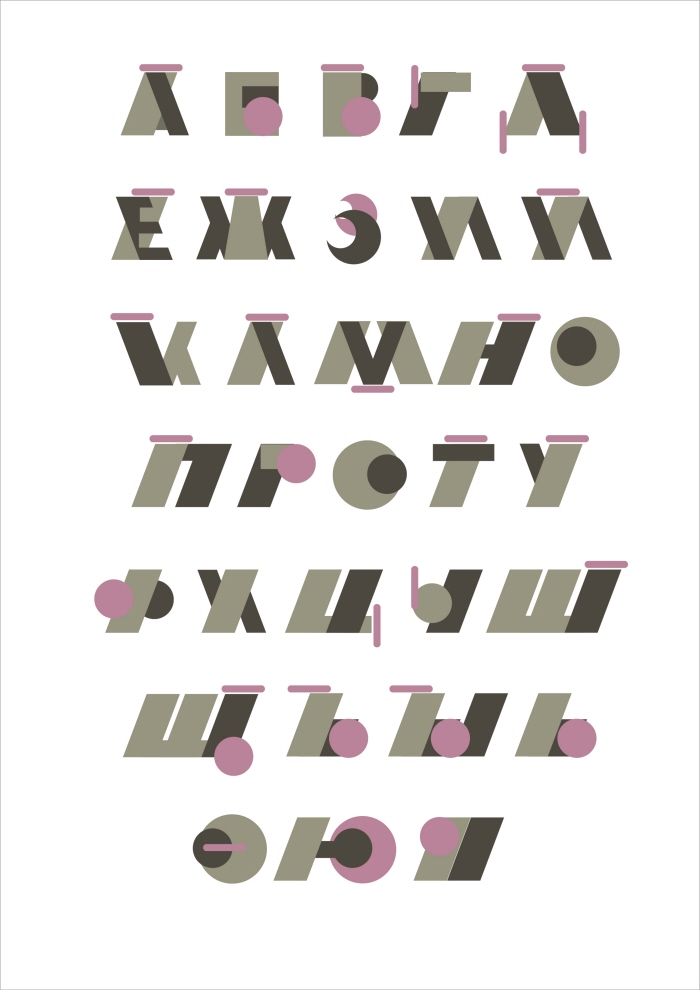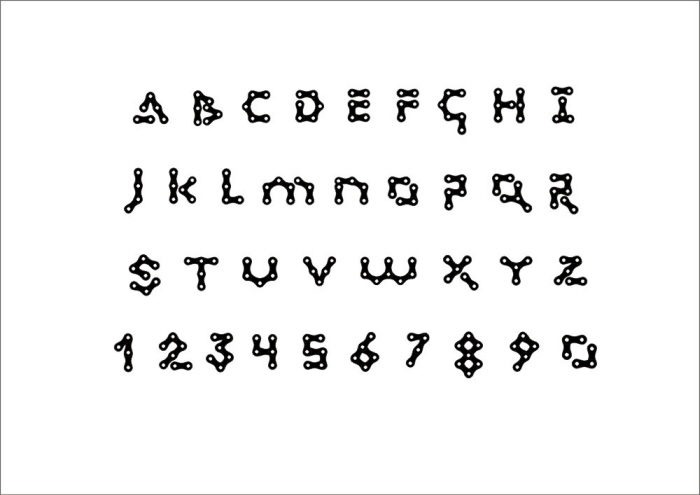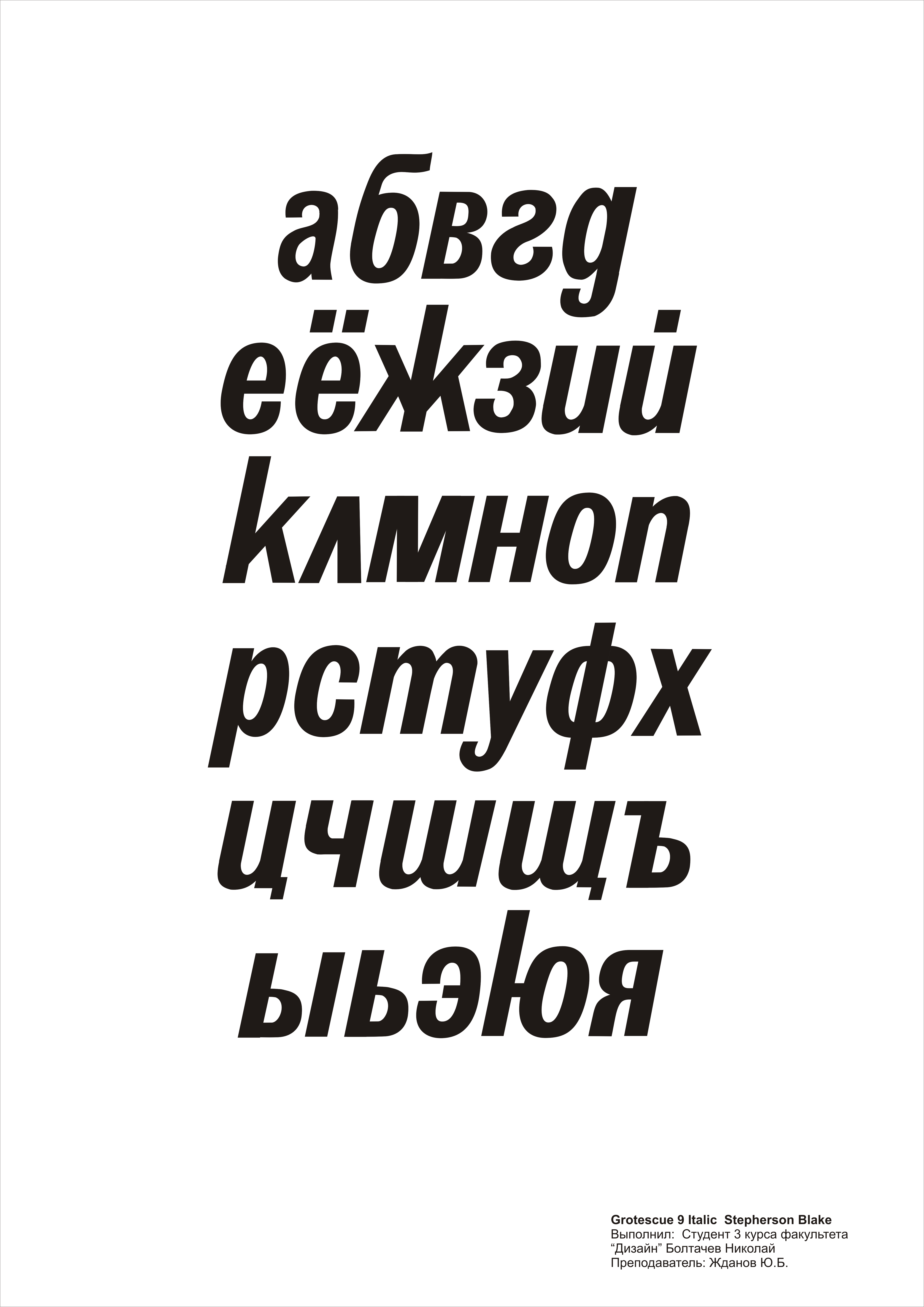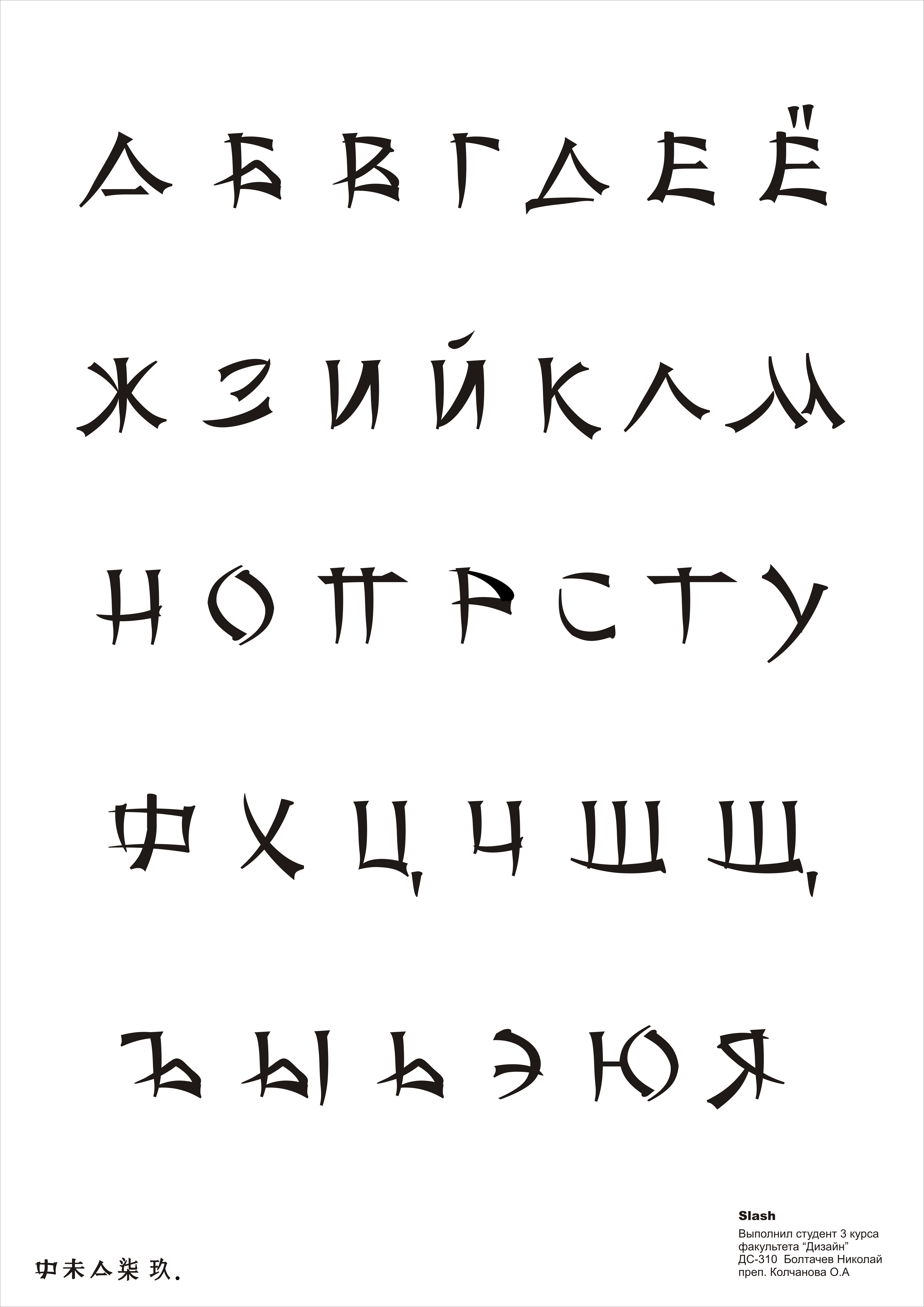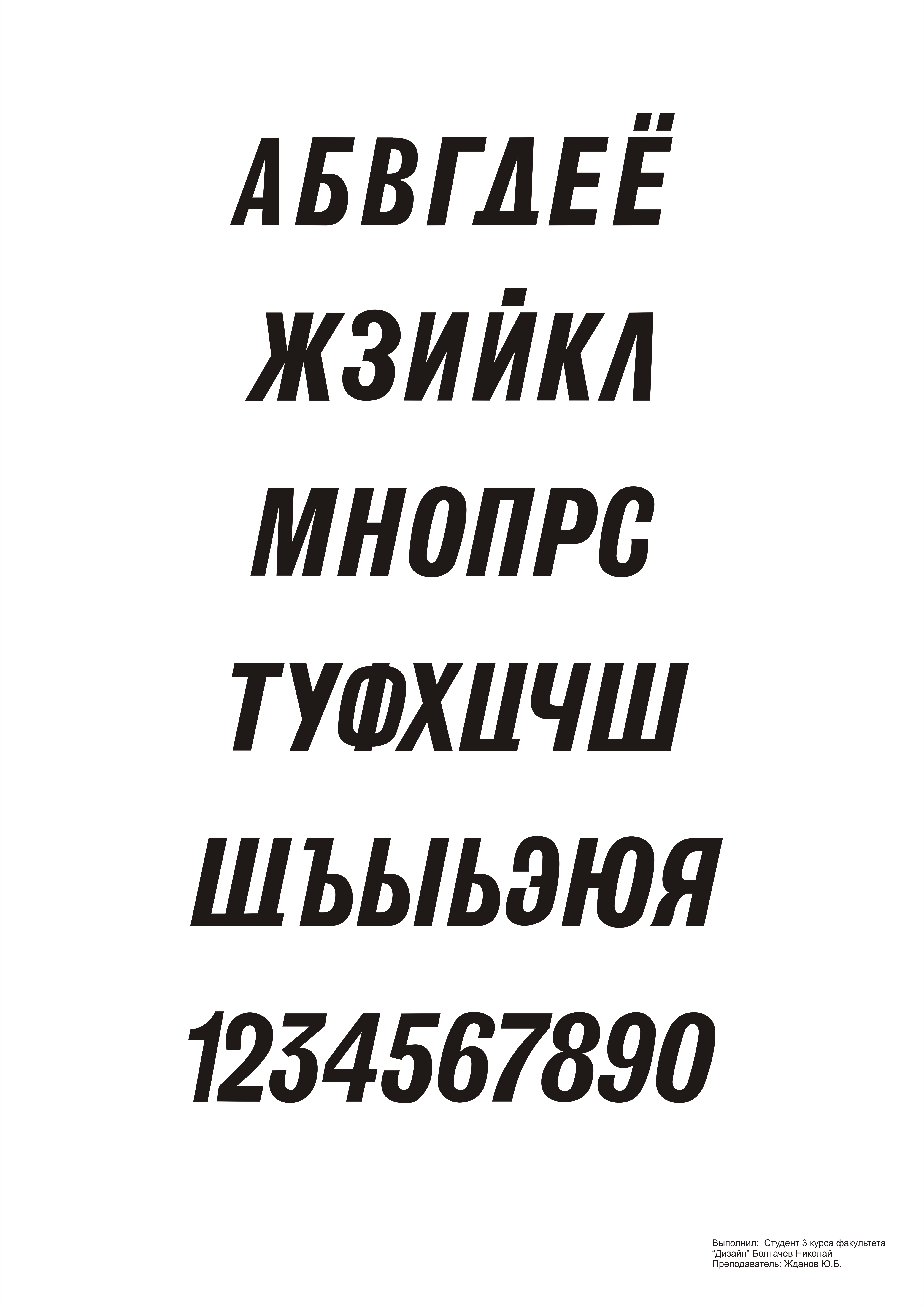
"Podval"art font
"Podval" font stylization
"Veloprofy" font sketch. I don't finish it
Simple font design uppercase letters
simple font design lower-case
Eastern font
Font composition "The cat"